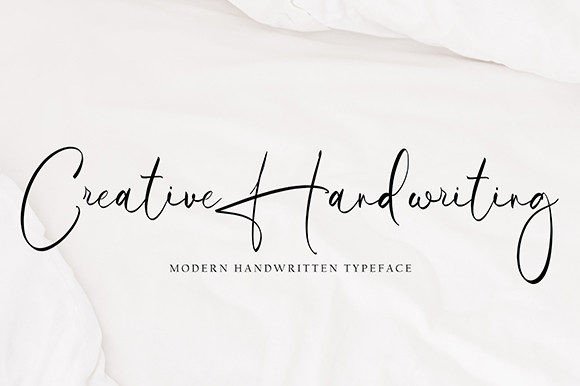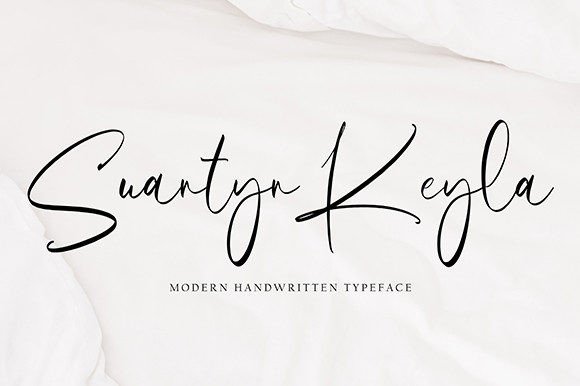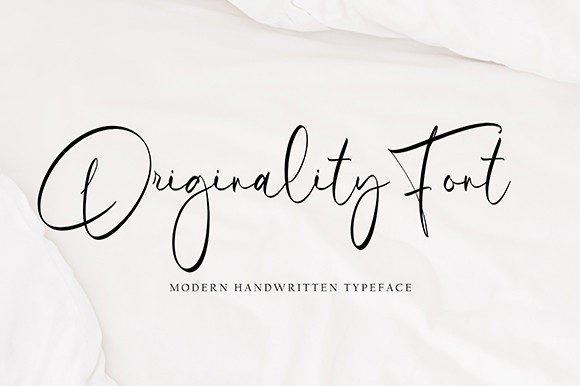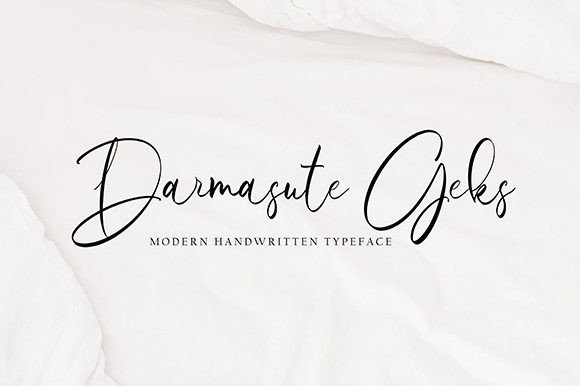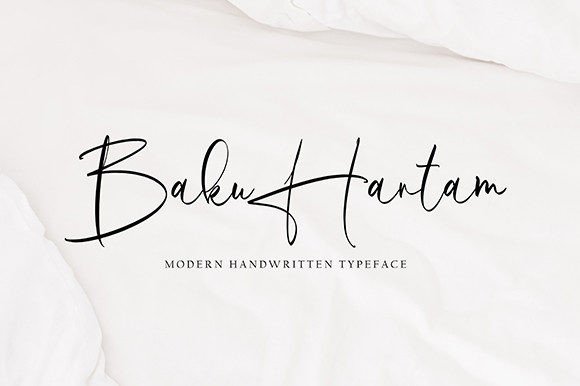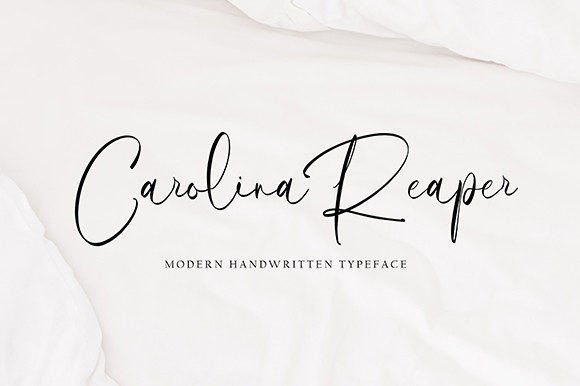
Introducing Banbogi Font: The Ultimate Modern Handwritten Font
Are you a designer, crafty person, or someone who loves to create amazing visual content? Look no further! You’re about to discover the Banbogi Font, a stunning and modern handwritten font that’s perfect for a wide range of creative projects. In this article, we’ll dive into the features, benefits, and uses of Banbogi Font, and explore why it’s a must-have for your font library.
What is Banbogi Font?
Banbogi Font is a beautiful and modern handwritten font that’s designed to add a touch of elegance and sophistication to your designs. Its unique and stylish lettering makes it perfect for creating visually appealing quotes, logos, blog headers, posters, branding materials, letters, invitations, stationery, and many more.
Key Features of Banbogi Font
- Modern and Handwritten: Banbogi Font boasts a fresh and modern handwritten style that’s sure to capture the attention of your audience.
- Versatile: This font is incredibly versatile and can be used for a wide range of projects, from digital designs to print materials.
- Easy to Read: Despite its stylish and cursive nature, Banbogi Font is easy to read, making it perfect for body text and headlines.
- High-Quality: Banbogi Font is a high-quality font that’s designed to deliver crisp and clear results, even at small sizes.
Benefits of Using Banbogi Font
So, why should you choose Banbogi Font for your next project? Here are just a few benefits of using this amazing font:
- Adds a Personal Touch: Banbogi Font’s handwritten style adds a personal touch to your designs, making them more relatable and engaging.
- Enhances Brand Identity: With Banbogi Font, you can create a unique and consistent brand identity that sets you apart from the competition.
- Saves Time: This font is easy to use and works seamlessly across different design platforms, saving you time and effort.
- Perfect for Creative Projects: Banbogi Font is ideal for creative projects, such as blog headers, posters, and social media graphics, where you want to make a statement.
Uses of Banbogi Font
Banbogi Font is an incredibly versatile font that can be used for a wide range of projects, including:
- Quotes and Inspirational Messages: Use Banbogi Font to create stunning quotes and inspirational messages that resonate with your audience.
- Logos and Branding: Create a unique and memorable logo for your brand using Banbogi Font.
- Blog Headers and Posters: Add a touch of elegance to your blog headers and posters with Banbogi Font.
- Invitations and Stationery: Use Banbogi Font to create beautiful invitations, stationery, and greeting cards.
Tips for Using Banbogi Font
To get the most out of Banbogi Font, here are a few tips to keep in mind:
- Experiment with Colors: Banbogi Font looks great in a variety of colors, so don’t be afraid to experiment and find the perfect hue for your design.
- Mix and Match Fonts: Combine Banbogi Font with other fonts to create a unique and visually appealing design.
- Pay Attention to Spacing: Make sure to adjust the spacing between letters and lines to ensure your text is easy to read.
In conclusion, Banbogi Font is a stunning and modern handwritten font that’s perfect for designers, crafters, and anyone who loves to create amazing visual content. With its unique and stylish lettering, versatility, and ease of use, Banbogi Font is a must-have for your font library. Whether you’re creating quotes, logos, blog headers, posters, or branding materials, Banbogi Font is sure to make a great asset to your designs.